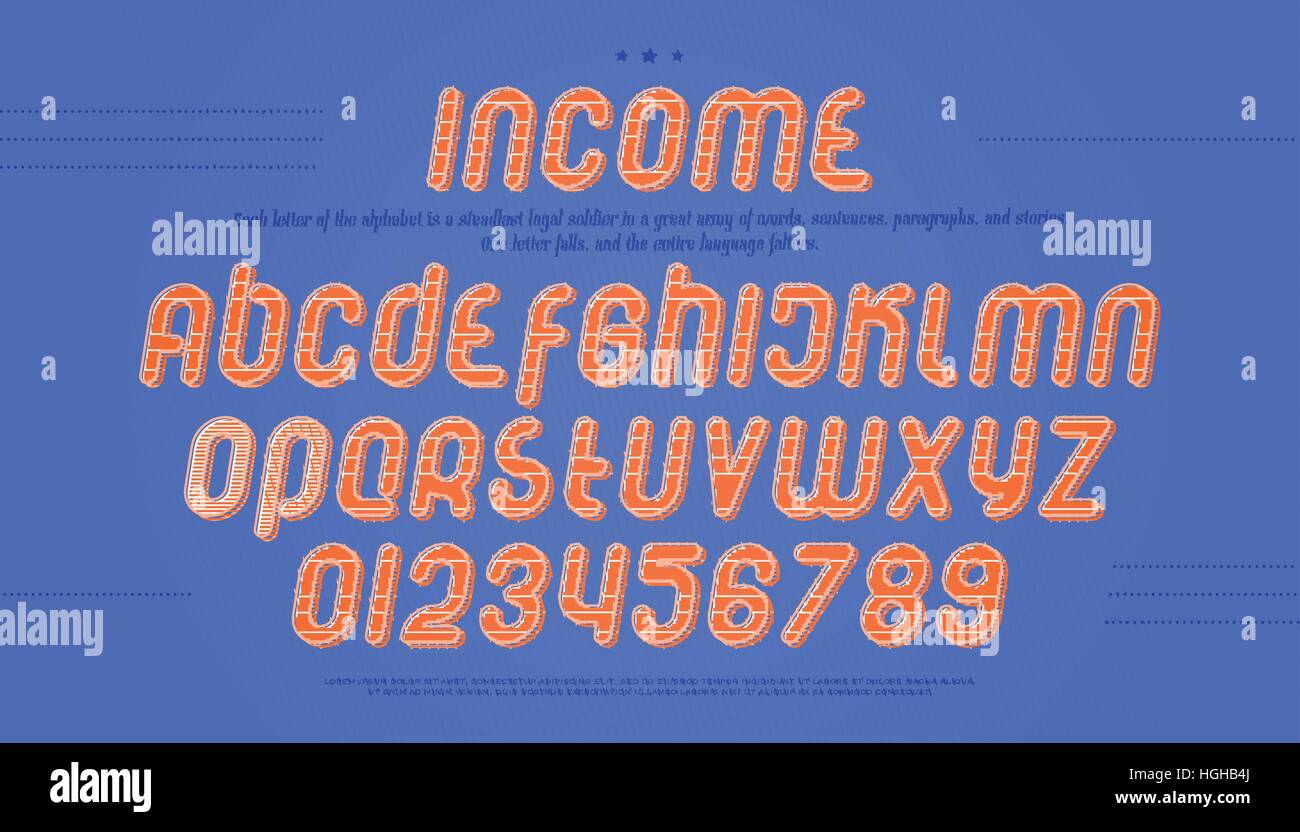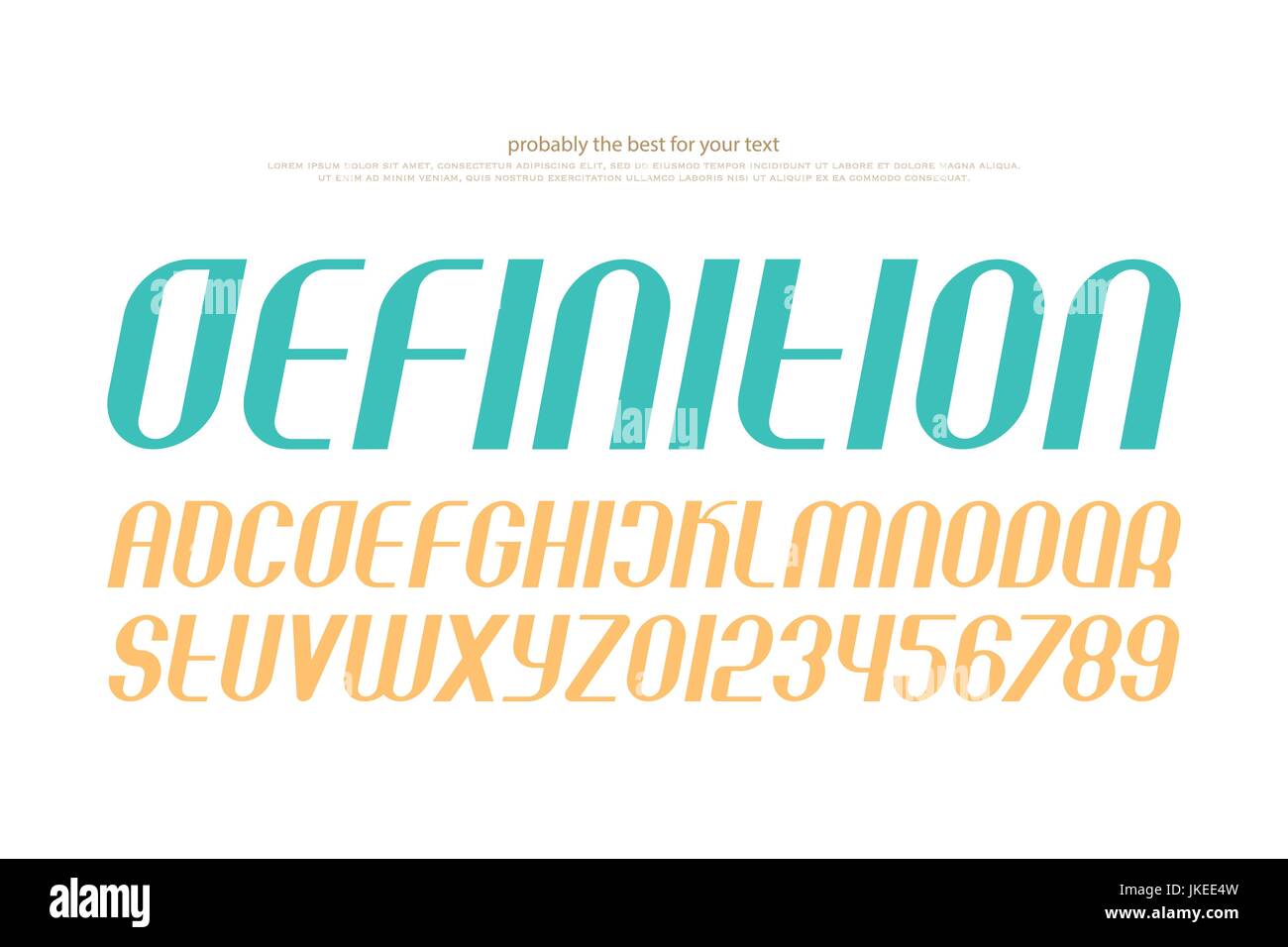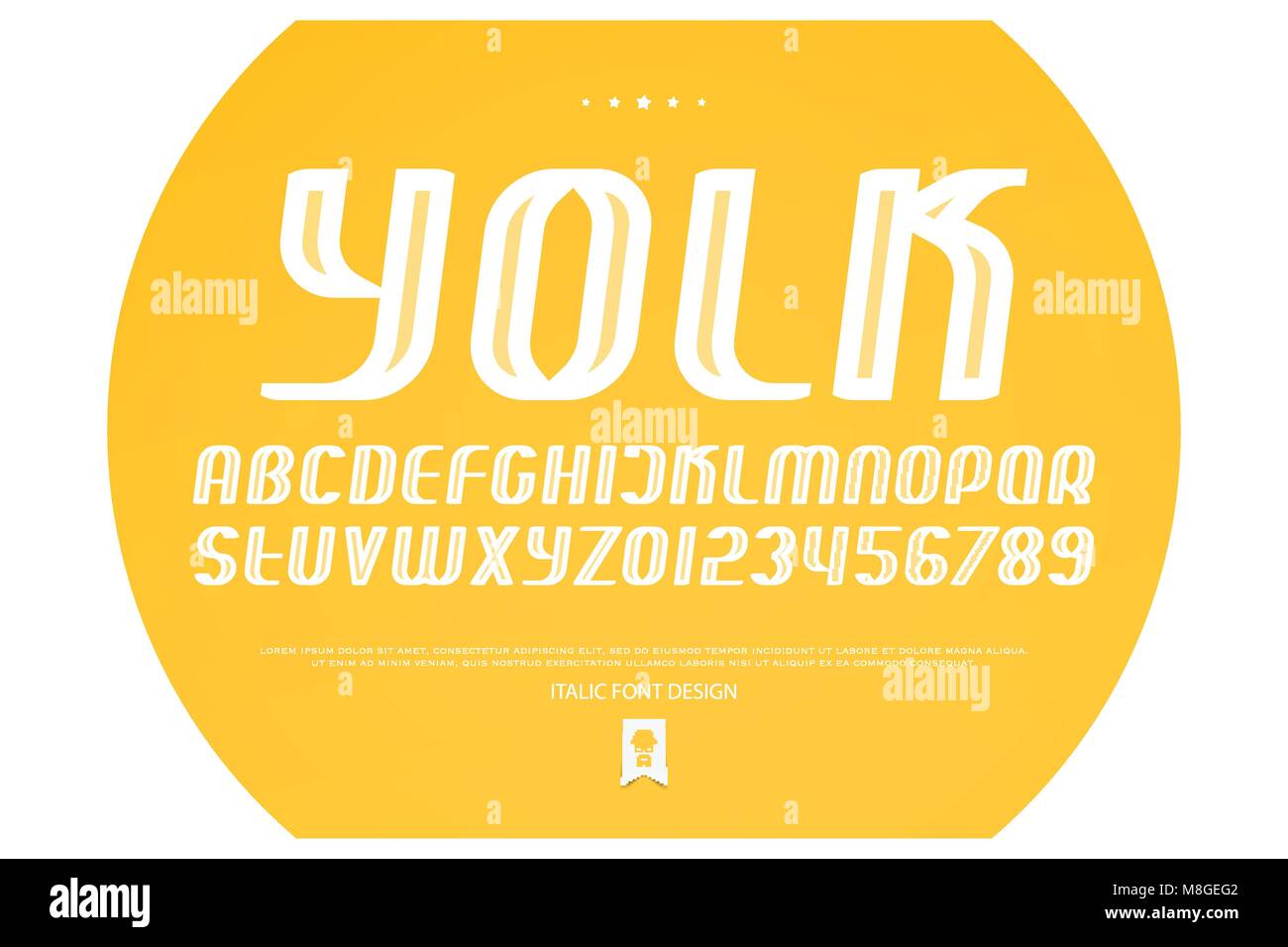
What Is A Sloped Typeface . Those with serifs, those without serifs, scripts and decorative styles. Most typefaces can be classified into one of four basic groups: Oblique typefaces are different from italic typefaces, in that they are mechanically sloped, then optically adjusted. A typeface that is slanted. Italics, on the other hand, are designed. You may remember our old friend, the lowercase e of the humanist (venetian) types, with its distinctive oblique (sloping) crossbar; Over the years, typographers and scholars of. Oblique or sloped roman oblique letters are slanted versions of the standard roman form, often arrived at by mechanical means. A sloped typeface (or describing a sloped typeface) with a design that usually retains the basic roman letterforms, often serving as a.
Over the years, typographers and scholars of. A sloped typeface (or describing a sloped typeface) with a design that usually retains the basic roman letterforms, often serving as a. A typeface that is slanted. Most typefaces can be classified into one of four basic groups: Oblique typefaces are different from italic typefaces, in that they are mechanically sloped, then optically adjusted. Oblique or sloped roman oblique letters are slanted versions of the standard roman form, often arrived at by mechanical means. Those with serifs, those without serifs, scripts and decorative styles. You may remember our old friend, the lowercase e of the humanist (venetian) types, with its distinctive oblique (sloping) crossbar; Italics, on the other hand, are designed.
What Is A Sloped Typeface Those with serifs, those without serifs, scripts and decorative styles. Over the years, typographers and scholars of. Oblique typefaces are different from italic typefaces, in that they are mechanically sloped, then optically adjusted. Oblique or sloped roman oblique letters are slanted versions of the standard roman form, often arrived at by mechanical means. Most typefaces can be classified into one of four basic groups: A sloped typeface (or describing a sloped typeface) with a design that usually retains the basic roman letterforms, often serving as a. You may remember our old friend, the lowercase e of the humanist (venetian) types, with its distinctive oblique (sloping) crossbar; Italics, on the other hand, are designed. A typeface that is slanted. Those with serifs, those without serifs, scripts and decorative styles.
set of italic style alphabet letters and numbers. vector, oblique font What Is A Sloped Typeface A typeface that is slanted. Oblique or sloped roman oblique letters are slanted versions of the standard roman form, often arrived at by mechanical means. You may remember our old friend, the lowercase e of the humanist (venetian) types, with its distinctive oblique (sloping) crossbar; A sloped typeface (or describing a sloped typeface) with a design that usually retains the. What Is A Sloped Typeface.
Slope Typeface Behance What Is A Sloped Typeface You may remember our old friend, the lowercase e of the humanist (venetian) types, with its distinctive oblique (sloping) crossbar; Oblique typefaces are different from italic typefaces, in that they are mechanically sloped, then optically adjusted. A sloped typeface (or describing a sloped typeface) with a design that usually retains the basic roman letterforms, often serving as a. Those with. What Is A Sloped Typeface.
Slant alphabets hires stock photography and images Alamy What Is A Sloped Typeface You may remember our old friend, the lowercase e of the humanist (venetian) types, with its distinctive oblique (sloping) crossbar; A typeface that is slanted. A sloped typeface (or describing a sloped typeface) with a design that usually retains the basic roman letterforms, often serving as a. Most typefaces can be classified into one of four basic groups: Those with. What Is A Sloped Typeface.
regular and slanted style alphabet letters and numbers. vector font What Is A Sloped Typeface Italics, on the other hand, are designed. A sloped typeface (or describing a sloped typeface) with a design that usually retains the basic roman letterforms, often serving as a. You may remember our old friend, the lowercase e of the humanist (venetian) types, with its distinctive oblique (sloping) crossbar; Over the years, typographers and scholars of. Those with serifs, those. What Is A Sloped Typeface.
Possible typeface Typography Graphic Design Forum What Is A Sloped Typeface Oblique or sloped roman oblique letters are slanted versions of the standard roman form, often arrived at by mechanical means. Italics, on the other hand, are designed. A sloped typeface (or describing a sloped typeface) with a design that usually retains the basic roman letterforms, often serving as a. Most typefaces can be classified into one of four basic groups:. What Is A Sloped Typeface.
CSS fonts Aspose.Font API Solution What Is A Sloped Typeface You may remember our old friend, the lowercase e of the humanist (venetian) types, with its distinctive oblique (sloping) crossbar; Over the years, typographers and scholars of. A sloped typeface (or describing a sloped typeface) with a design that usually retains the basic roman letterforms, often serving as a. Italics, on the other hand, are designed. Most typefaces can be. What Is A Sloped Typeface.
Color Slope Typeface on Behance What Is A Sloped Typeface A sloped typeface (or describing a sloped typeface) with a design that usually retains the basic roman letterforms, often serving as a. A typeface that is slanted. You may remember our old friend, the lowercase e of the humanist (venetian) types, with its distinctive oblique (sloping) crossbar; Those with serifs, those without serifs, scripts and decorative styles. Italics, on the. What Is A Sloped Typeface.
PPT Choosing Typefaces for Logos and Logotypes PowerPoint What Is A Sloped Typeface Italics, on the other hand, are designed. Most typefaces can be classified into one of four basic groups: Oblique or sloped roman oblique letters are slanted versions of the standard roman form, often arrived at by mechanical means. Over the years, typographers and scholars of. A typeface that is slanted. Those with serifs, those without serifs, scripts and decorative styles.. What Is A Sloped Typeface.